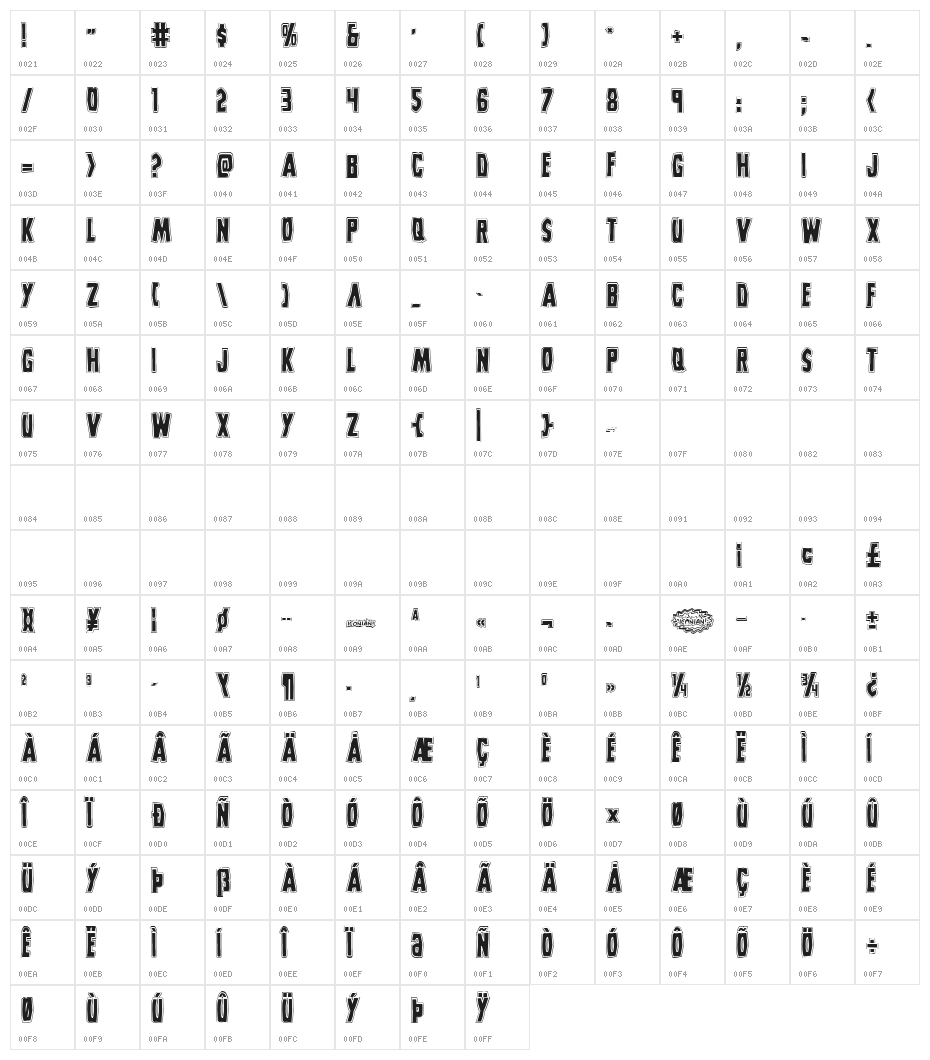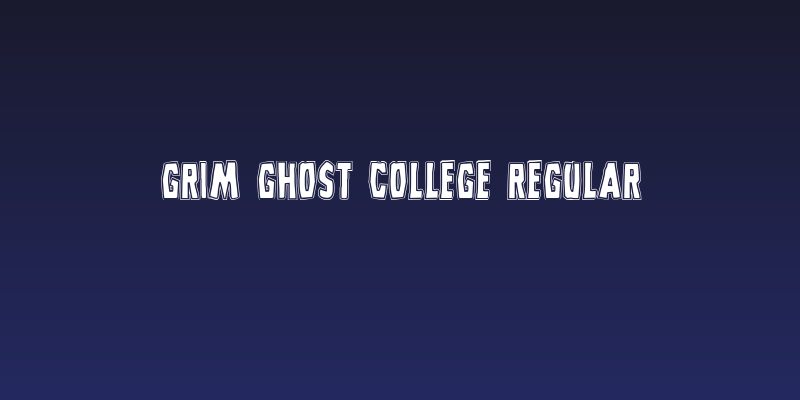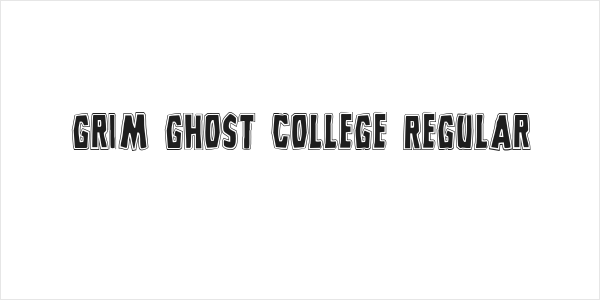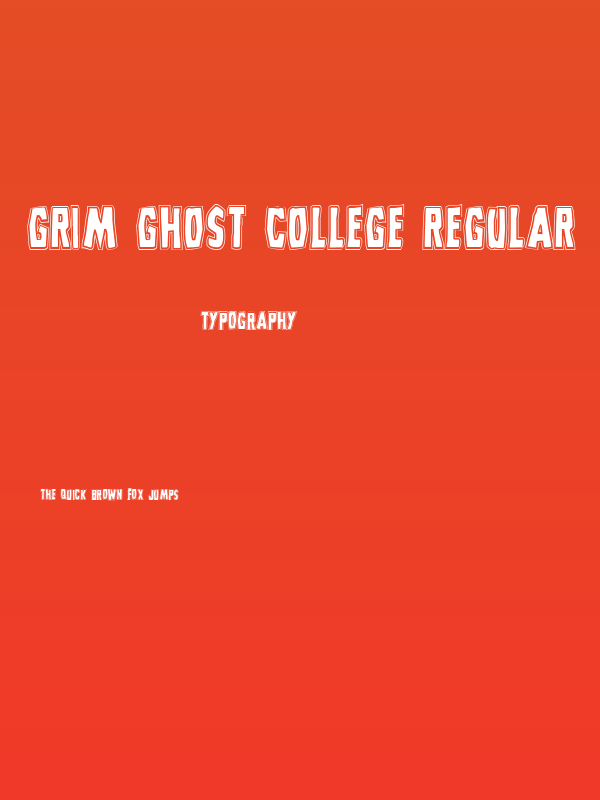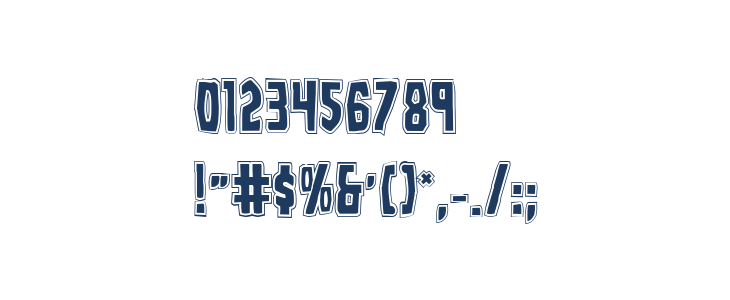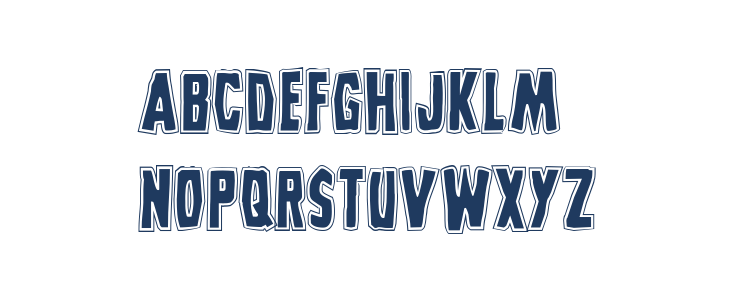
Grim Ghost College Regular Font
Grim Ghost College Regular Description
This font features a bold, impactful style with a distinct outline that gives it a three-dimensional appearance. The characters are uppercase with a slightly irregular, hand-drawn quality, adding a playful and dynamic feel. The strokes are thick and consistent, providing a strong visual presence. The font's unique design makes it suitable for attention-grabbing headlines and creative projects. The spacing between characters is normal, allowing for clear readability while maintaining its bold aesthetic.
| Proposed Projects | Ideal for posters, event flyers, comic book titles, and any project requiring a bold, eye-catching typeface. |